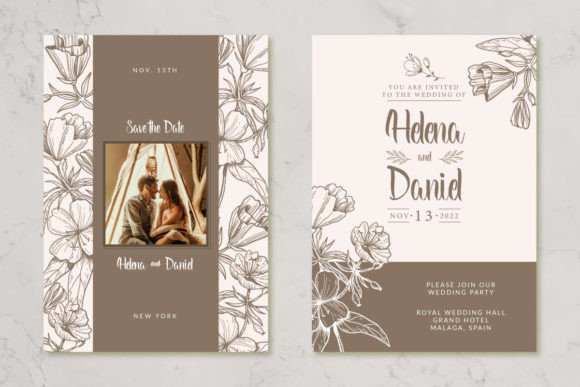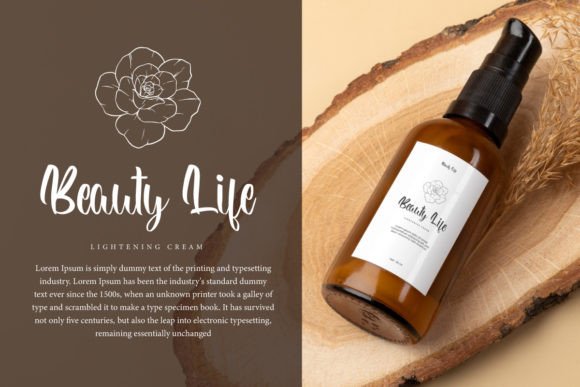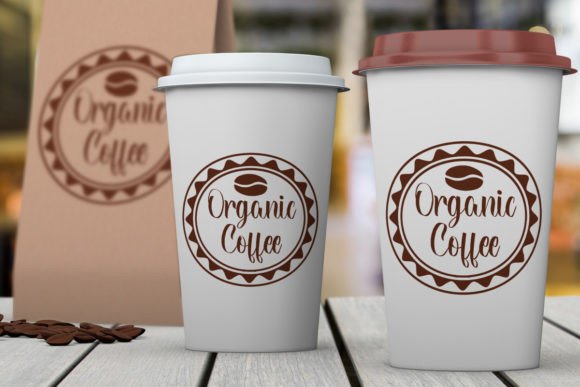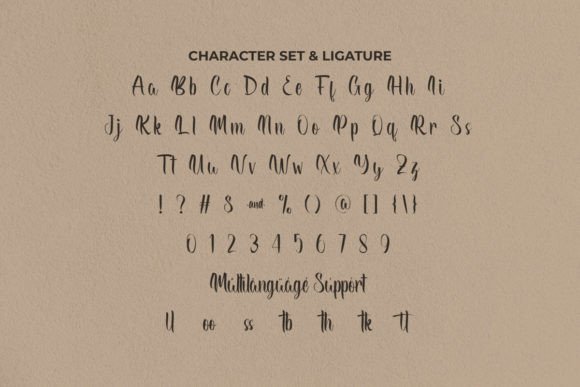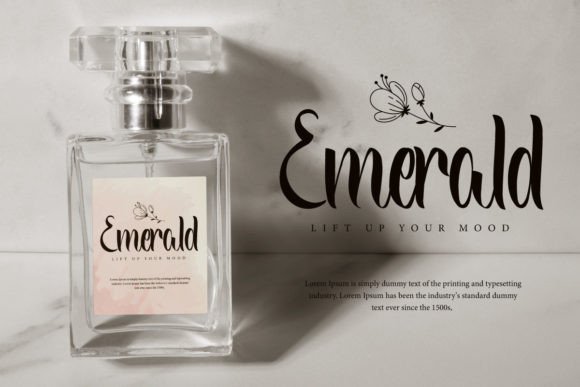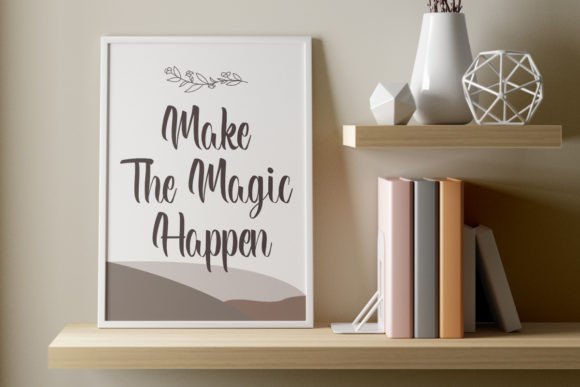
Introducing Back and Forward Font: Elevate Your Creations with Stylish Calligraphy
In the world of typography, a well-chosen font can make all the difference in transforming a design from ordinary to extraordinary. For designers, crafters, and creatives looking to add a touch of elegance and sophistication to their projects, the Back and Forward Font is an excellent choice. This stylish calligraphy script font is designed to bring a sense of refinement and luxury to any design, while maintaining a natural and grounded feel.
The Characteristics of Back and Forward Font
Back and Forward Font is a beautiful example of calligraphy script typography, characterized by its flowing lines, elegant swashes, and refined letterforms. This font is perfect for designers who want to add a touch of sophistication and glamour to their creations. The font’s stylish and graceful appearance makes it ideal for a wide range of design projects, from wedding invitations and stationery to branding and advertising materials.
What Makes Back and Forward Font Stand Out
So, what sets Back and Forward Font apart from other fonts in the market? Here are a few key features that make this font a standout:
- Stylish and Elegant: Back and Forward Font boasts a stylish and elegant design that is sure to elevate the look of any design project.
- Flowing Lines: The font’s flowing lines and swashes create a sense of movement and fluidity, adding a dynamic touch to any design.
- Grounded and Natural: Despite its luxurious feel, Back and Forward Font remains grounded and natural, making it perfect for designs that require a touch of sophistication without being too over-the-top.
- Versatile: This font is versatile and can be used for a wide range of design projects, from print materials to digital applications.
How to Use Back and Forward Font in Your Designs
Back and Forward Font is an incredibly versatile font that can be used in a variety of design projects. Here are a few ideas to get you started:
- Wedding Invitations: Add a touch of elegance and sophistication to your wedding invitations and stationery with Back and Forward Font.
- Branding and Advertising: Use this font to create luxurious and high-end branding and advertising materials that exude sophistication and glamour.
- Packaging Design: Elevate your packaging design with Back and Forward Font, perfect for luxury products and high-end brands.
- Digital Applications: Use this font in digital applications such as website headers, social media graphics, and more.
Tips for Pairing Back and Forward Font with Other Fonts
Pairing Back and Forward Font with other fonts can create a stunning contrast and add visual interest to your design. Here are a few tips for pairing this font with other fonts:
- Pair with Sans-Serif Fonts: Pair Back and Forward Font with sans-serif fonts for a striking contrast that adds visual interest to your design.
- Use with Serif Fonts: Pairing this font with serif fonts can create a beautiful harmony and add a touch of sophistication to your design.
- Experiment with Script Fonts: Pairing Back and Forward Font with other script fonts can create a stunning effect and add a touch of elegance to your design.
In conclusion, Back and Forward Font is a stylish calligraphy script font that is sure to elevate the look of any design project. With its elegant and flowing lines, this font is perfect for designers and crafters looking to add a touch of sophistication and luxury to their creations. Whether you’re designing wedding invitations, branding materials, or packaging, Back and Forward Font is an excellent choice. So why wait? Try Back and Forward Font today and take your designs to the next level!